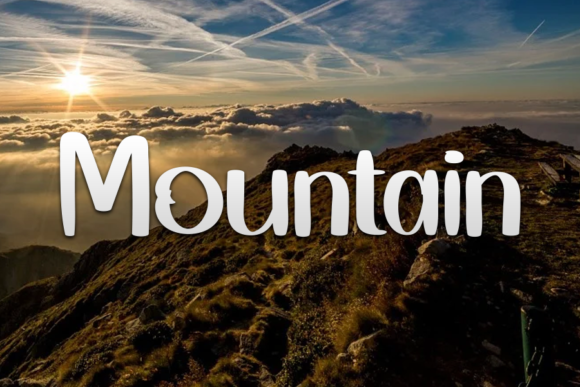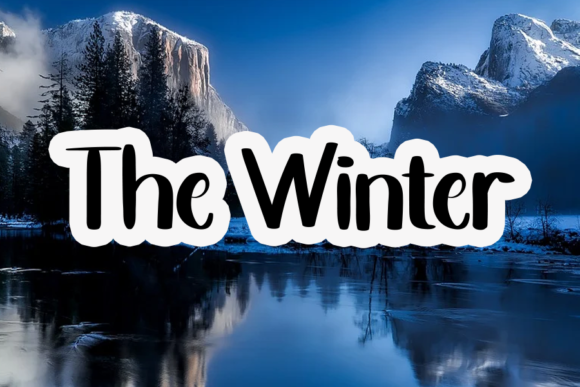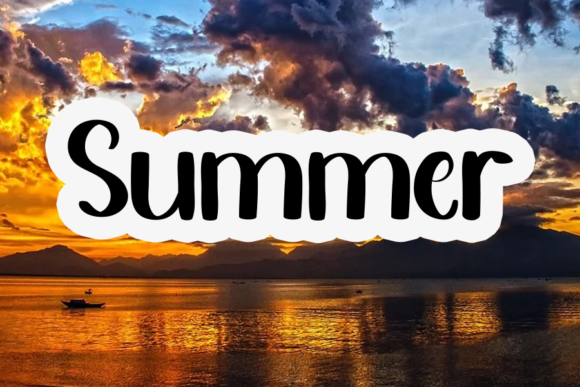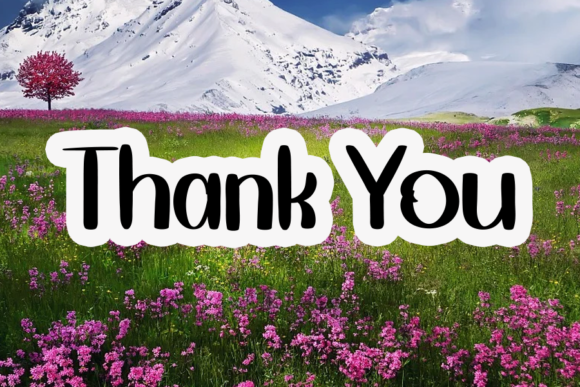
The Magic of Beautiful Rainbow Font: A Designer’s Delight
I’ll never forget the time I was working on a greeting card project, struggling to find the perfect font that would capture the warmth and playfulness of the occasion. My client wanted something simple, yet eye-catching; elegant, yet approachable. That’s when I stumbled upon Beautiful Rainbow, a simple handwritten font that has since become a staple in my design toolkit.
Beautiful Rainbow is a versatile font that boasts a wide spectrum of applications, ranging from greeting cards to headlines. Its charm lies in its ability to add a simple and natural feel to any project, making it an excellent choice for designers, crafters, and creative hobbyists alike.
- ✅ Easy to read and understand, even at small font sizes
- ✅ Perfect for both digital and print projects
- ✅ Supports OpenType features, glyphs, and stylistic alternates
- ✅ Highly versatile and adaptable to various design styles
- ⚠️ Limited character set compared to more extensive font libraries
- ⚠️ May not be the best choice for body text or lengthy content
The Story Behind Beautiful Rainbow
Beautiful Rainbow was designed with the intention of creating a simple, yet eye-catching font that would add a touch of warmth and personality to any design project. Inspired by the beauty of nature and the simplicity of handwritten scripts, this font has become a popular choice among designers and crafters.
Q: What type of projects is Beautiful Rainbow best suited for?
A: Beautiful Rainbow is versatile and can be used for a wide range of projects, including greeting cards, headlines, social media graphics, and more.
Q: Does Beautiful Rainbow support OpenType features and glyphs?
A: Yes, Beautiful Rainbow supports OpenType features and glyphs, making it a great choice for designers who want to add an extra layer of creativity to their projects.